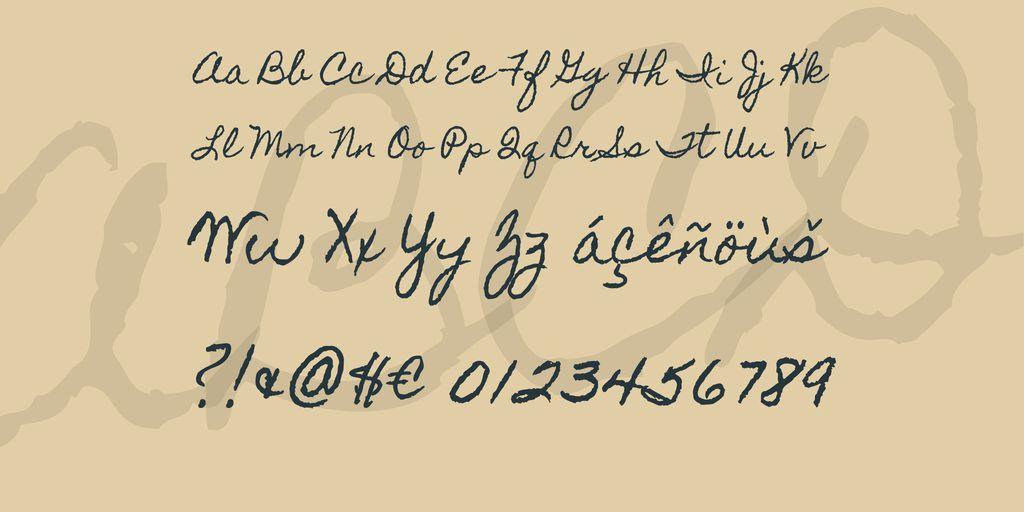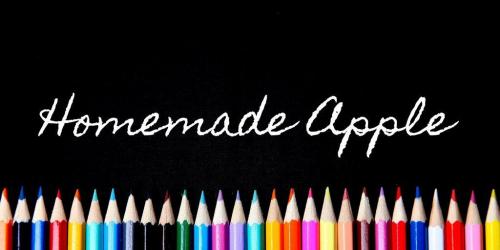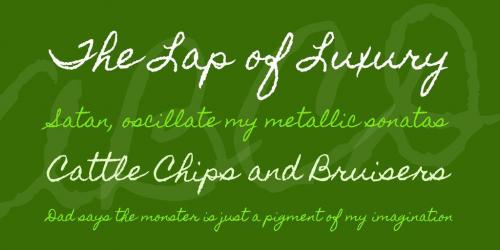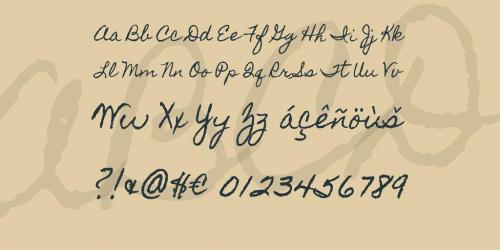
Nothing says down-home goodness like a delicious Homemade Apple pie. For a good one, you have to make it yourself. Should you find yourself lacking in the recipe department, use this beautifully drawn cursive handwriting script font to give a personal touch.